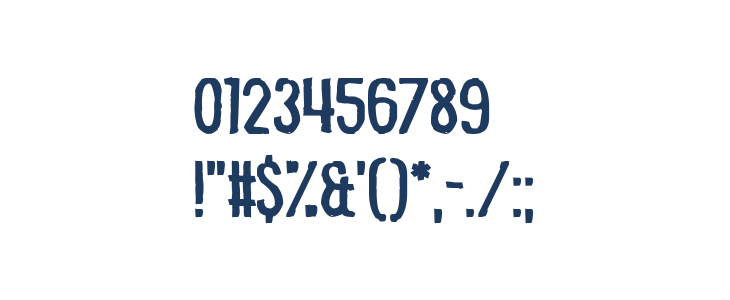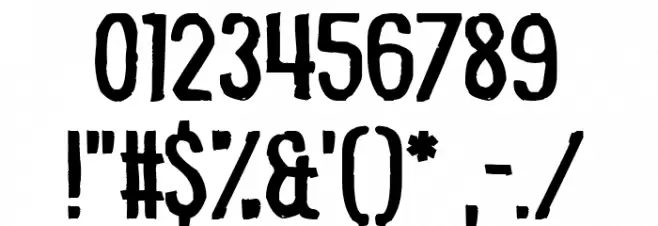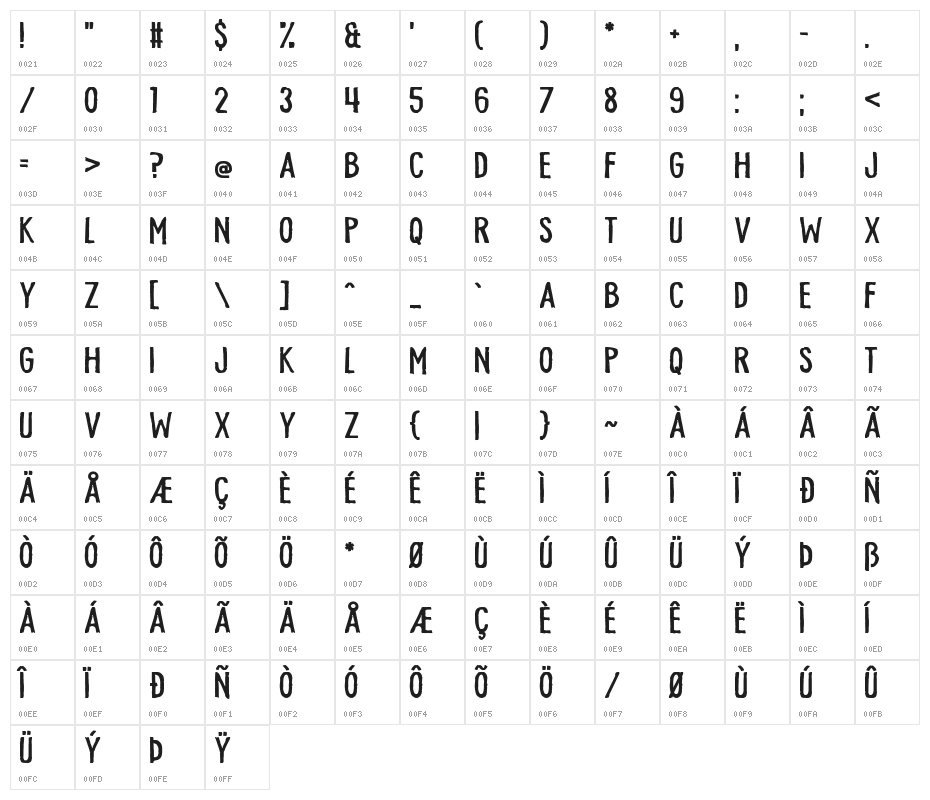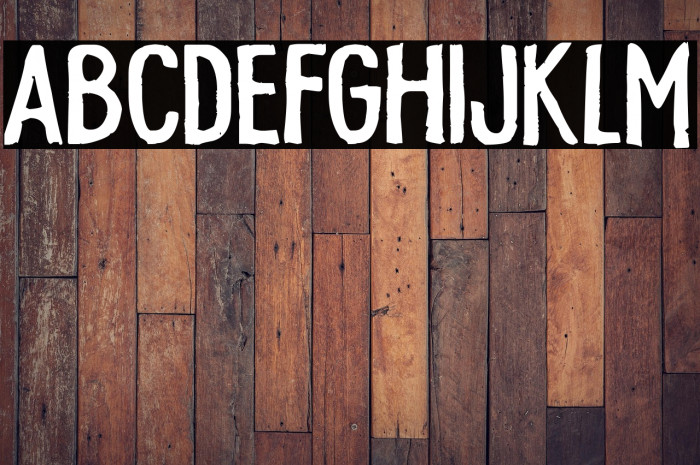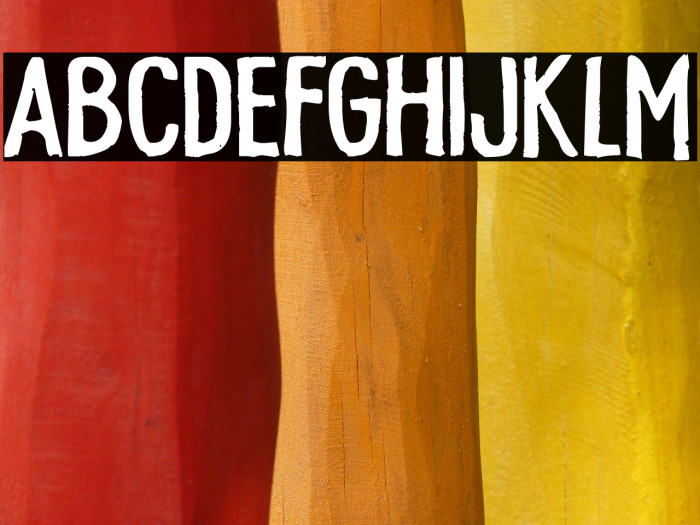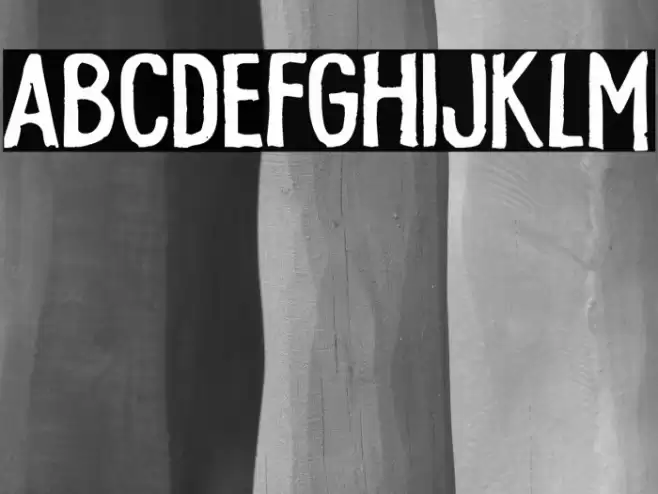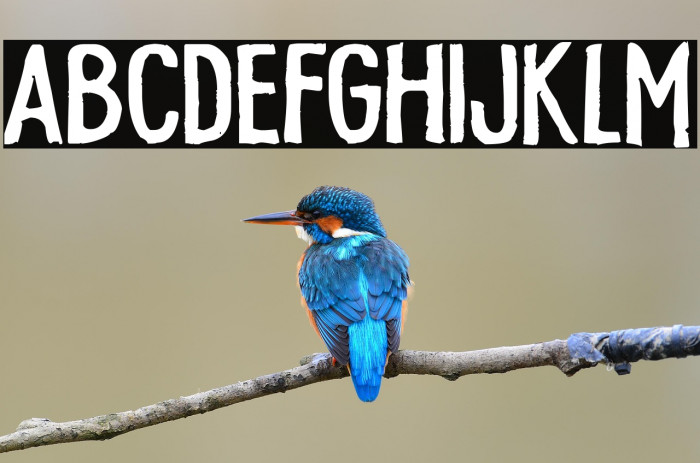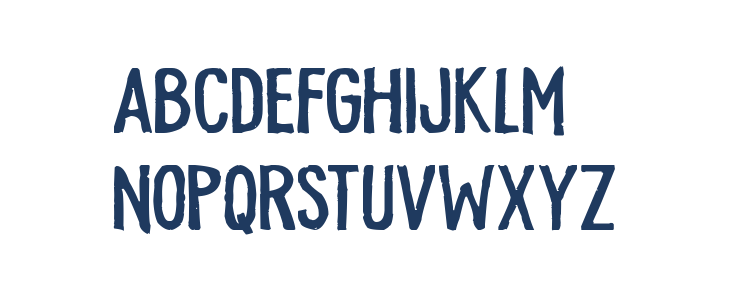
Memorial Lane Font
Memorial Lane Description
This font features a bold and rugged style with a hand-drawn appearance. The characters are slightly irregular, giving it a unique and organic feel. The uppercase letters are tall and narrow, while the lowercase letters maintain a consistent height, adding to its distinctiveness. The numbers and special characters follow the same bold and textured style, making them stand out. This font's rough edges and uneven strokes contribute to its handcrafted look, making it ideal for projects that require a touch of authenticity and personality.
| Proposed Projects | Ideal for posters, branding, packaging, and any design that requires a handcrafted, authentic feel. |